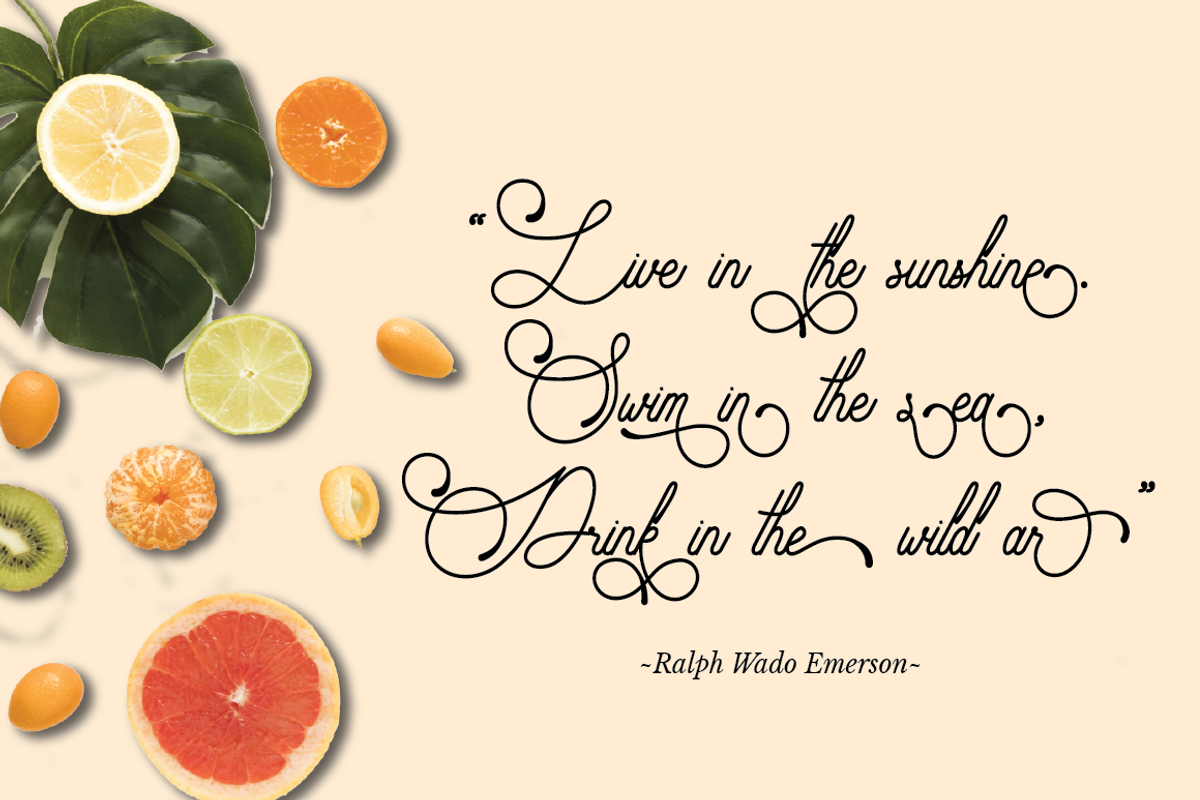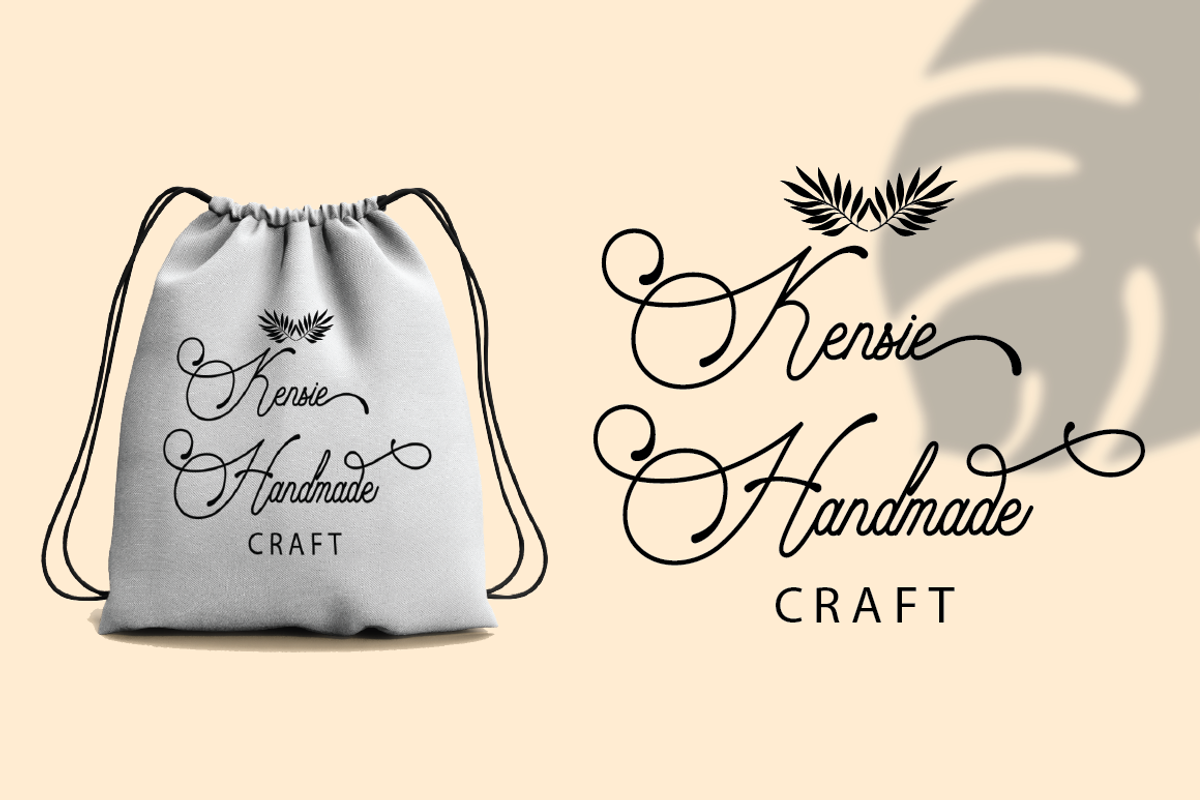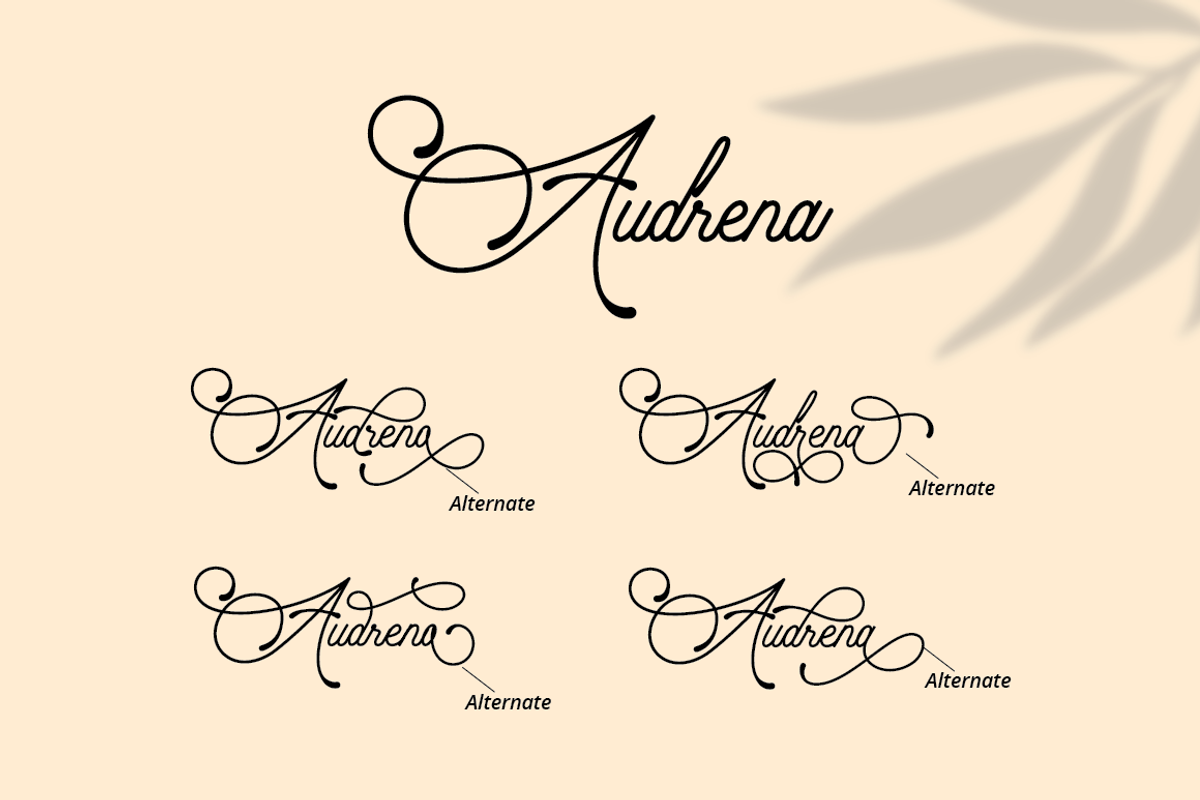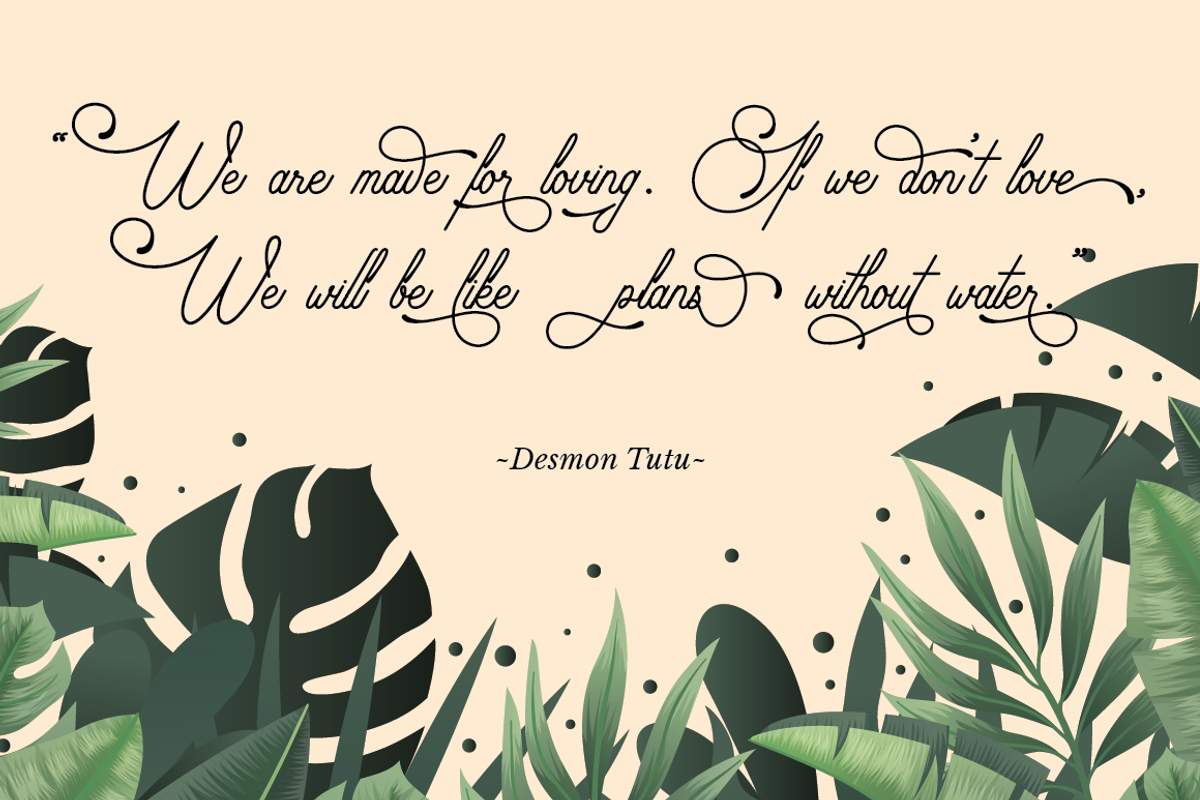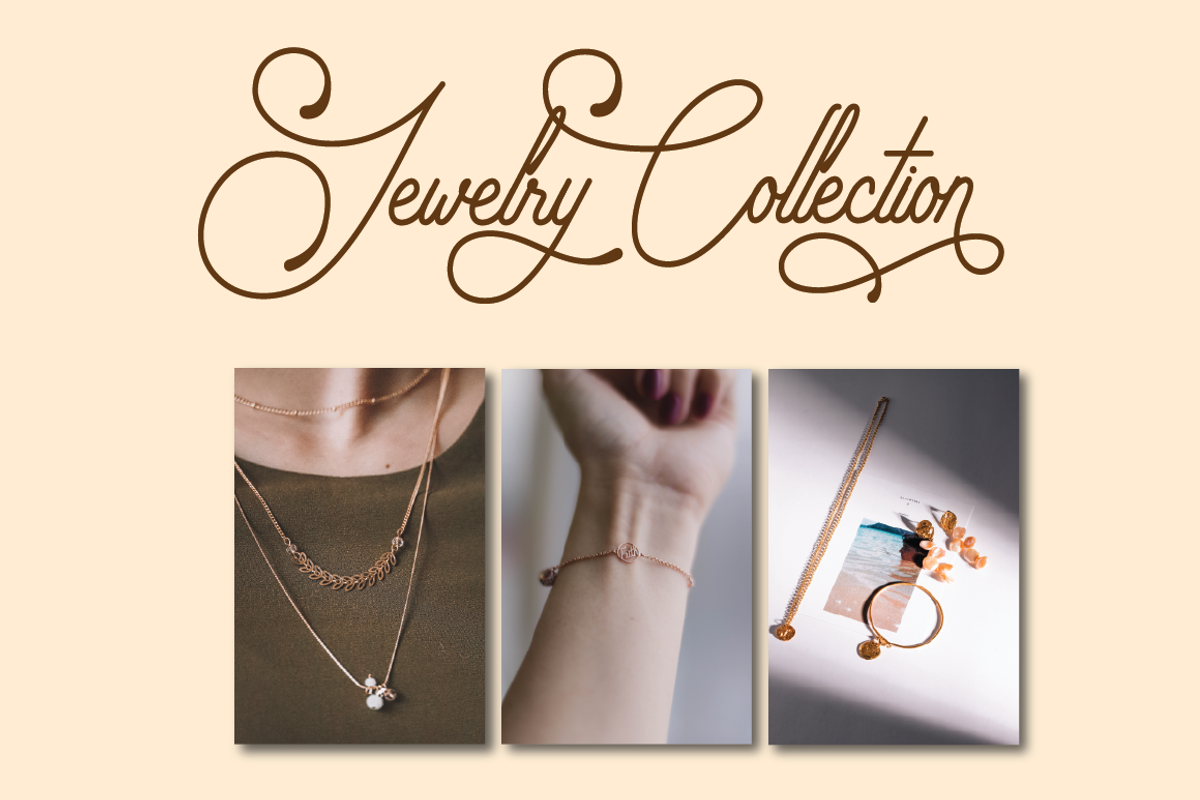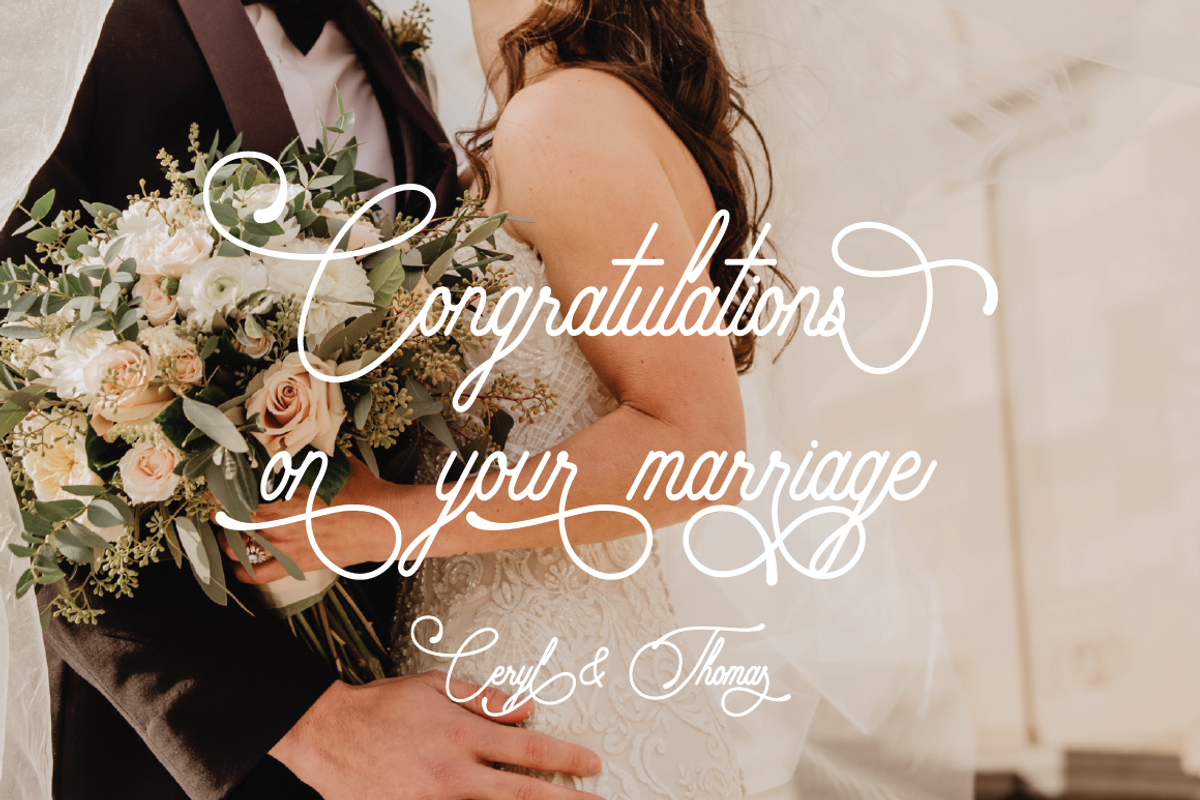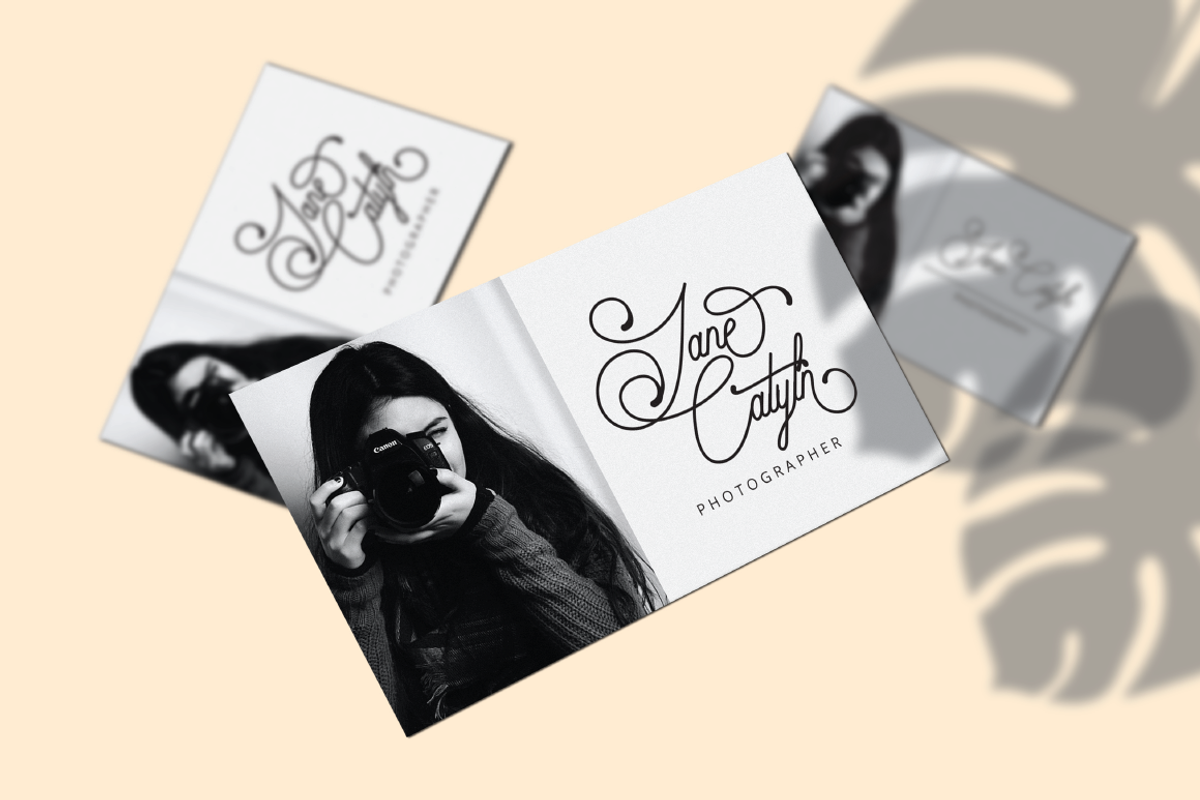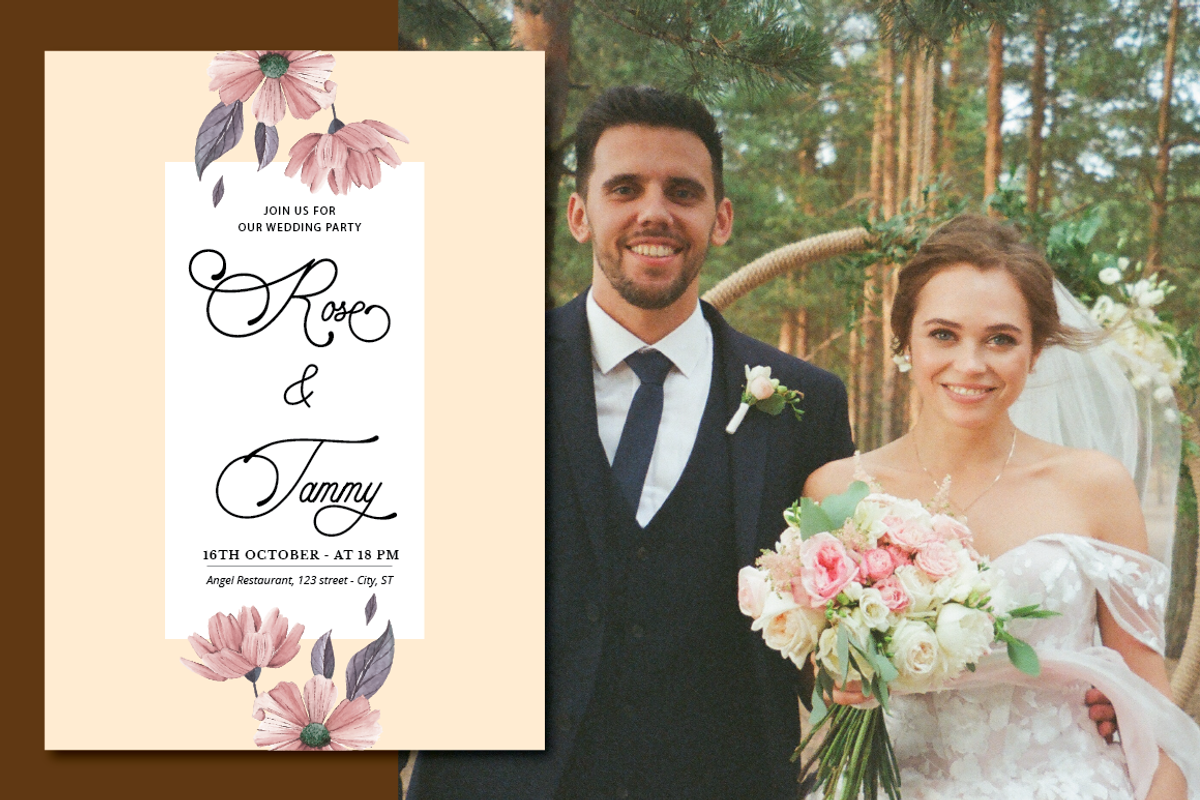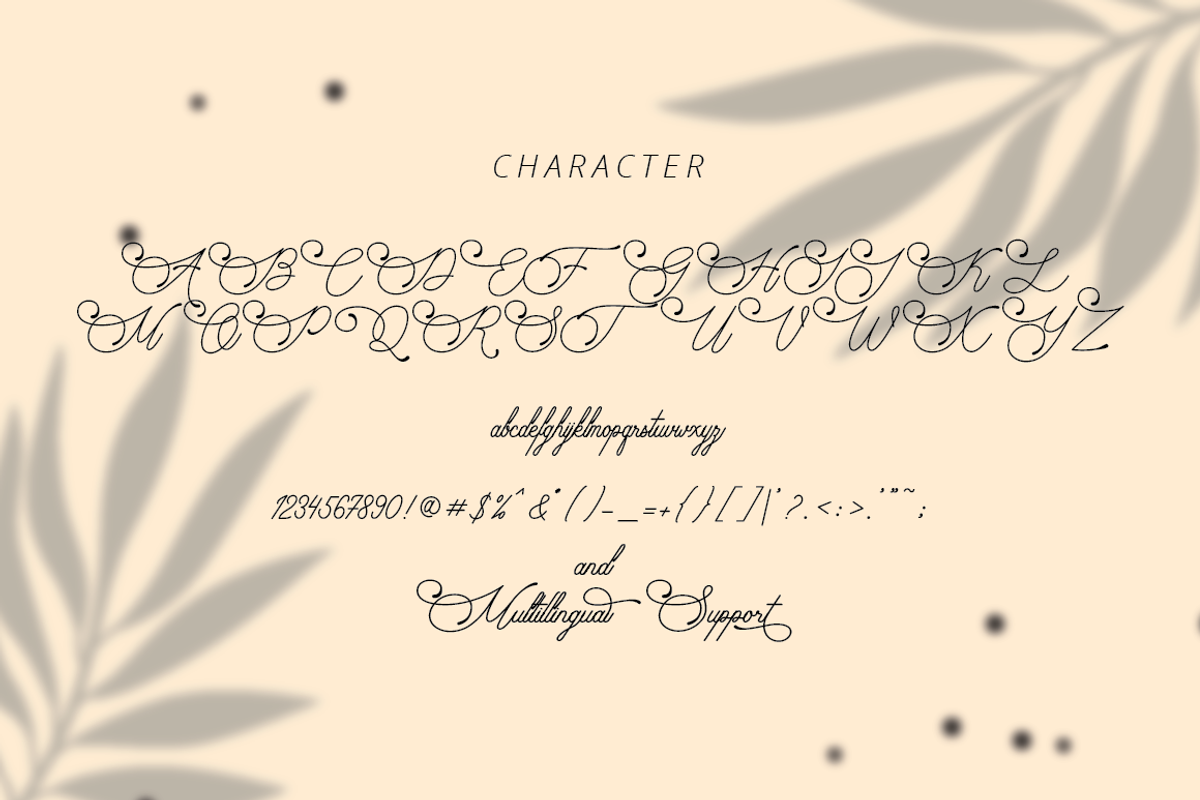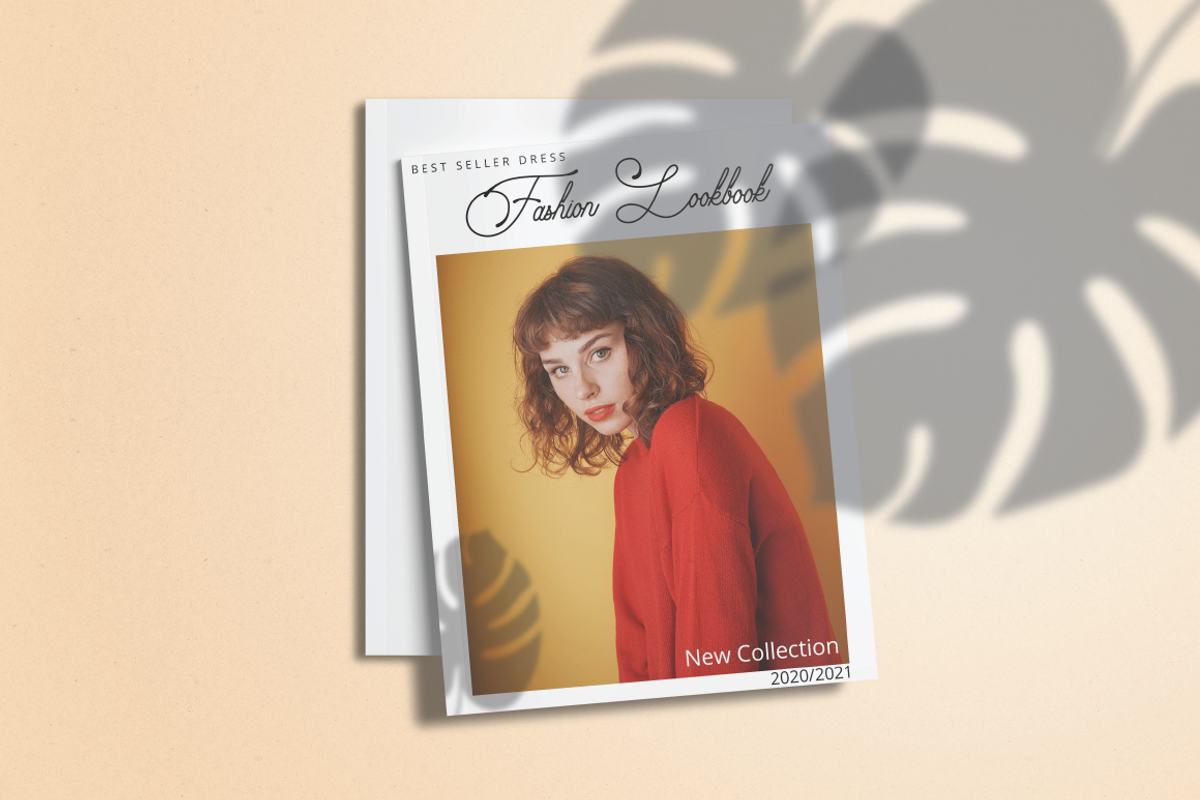
Audrena - Beautiful Monoline Font
Audrena
Introducing Audrena , a new elegant modern script font. a lovely, elegant and sweet script font. Audrena is perfect for styling logos, stationery, wedding event, invitation, quote, social media, websites and so much more!
Come with Opentype feature with a lot of alternates, its help you to make great lettering.This font is also support multi language.
Comes with feature :
- Number, Punctuation And Symbols
- Multilanguage Support.